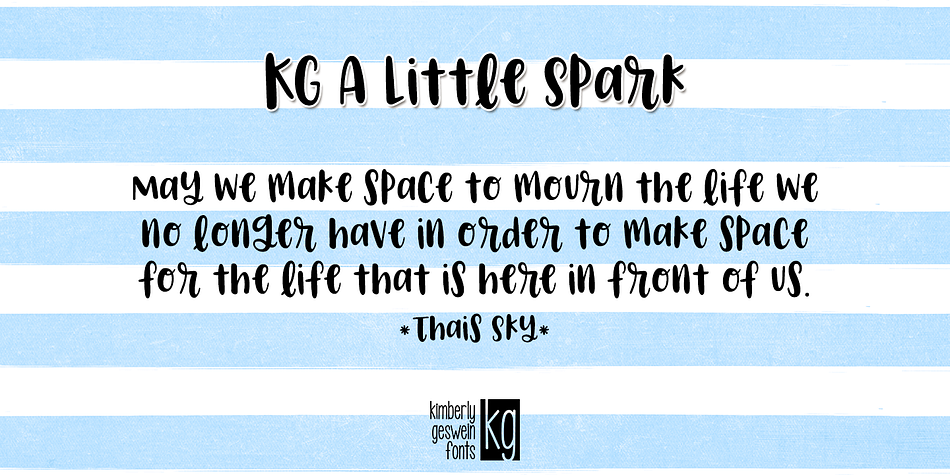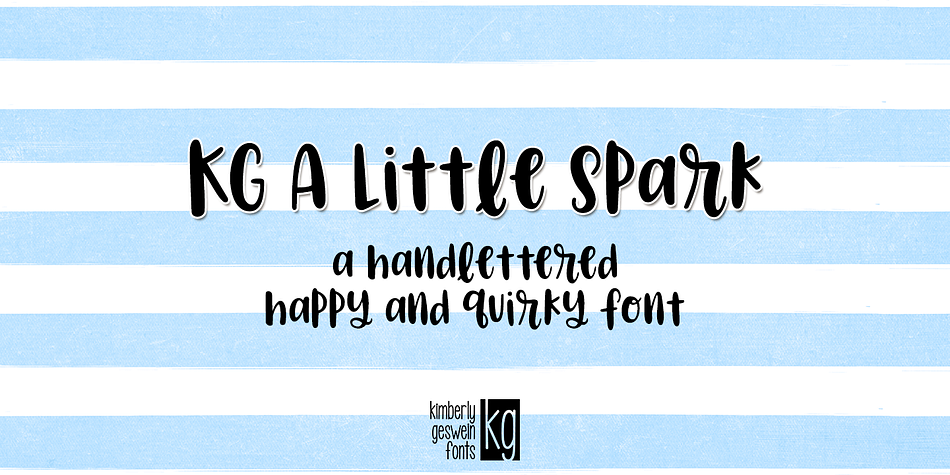
Designed by Kimberly Geswein, KG A Little Spark is a brush display font published by Kimberly Geswein Fonts.
A quirky little brushstroke font. I have needed joy in my life this year and this lettering style makes me feel hope and feel happy. I hope it does the same for you!
Style | Brush Display |
Designer | Kimberly Geswein |